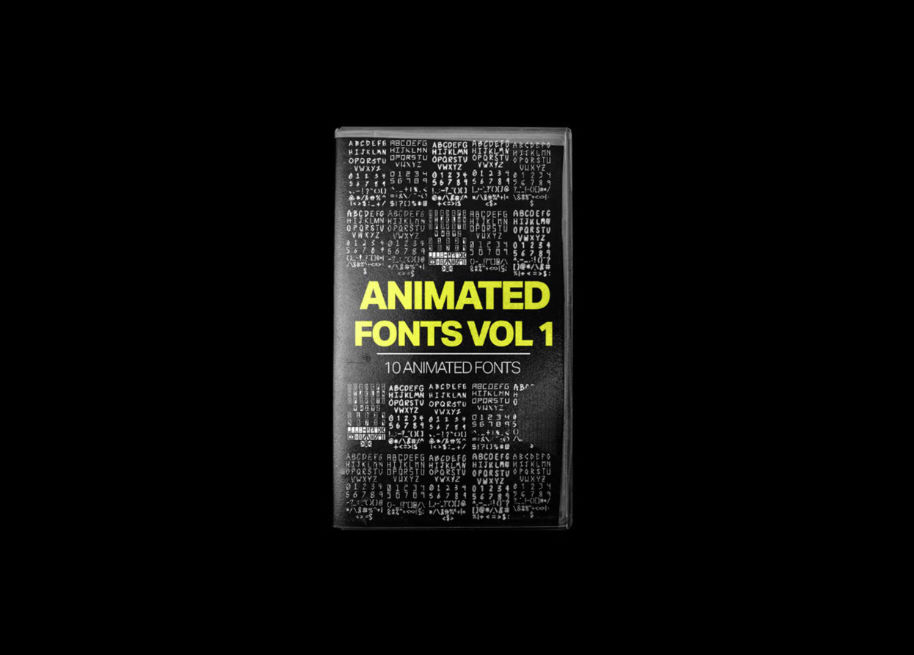
ANIMATED FONTS VOL. 1 – Tropic Colour
Add fun handcrafted animated fonts to any project to make your videos stand out 1st created for various Under Armor projects we’ve now made these assets available to editors like you around the world